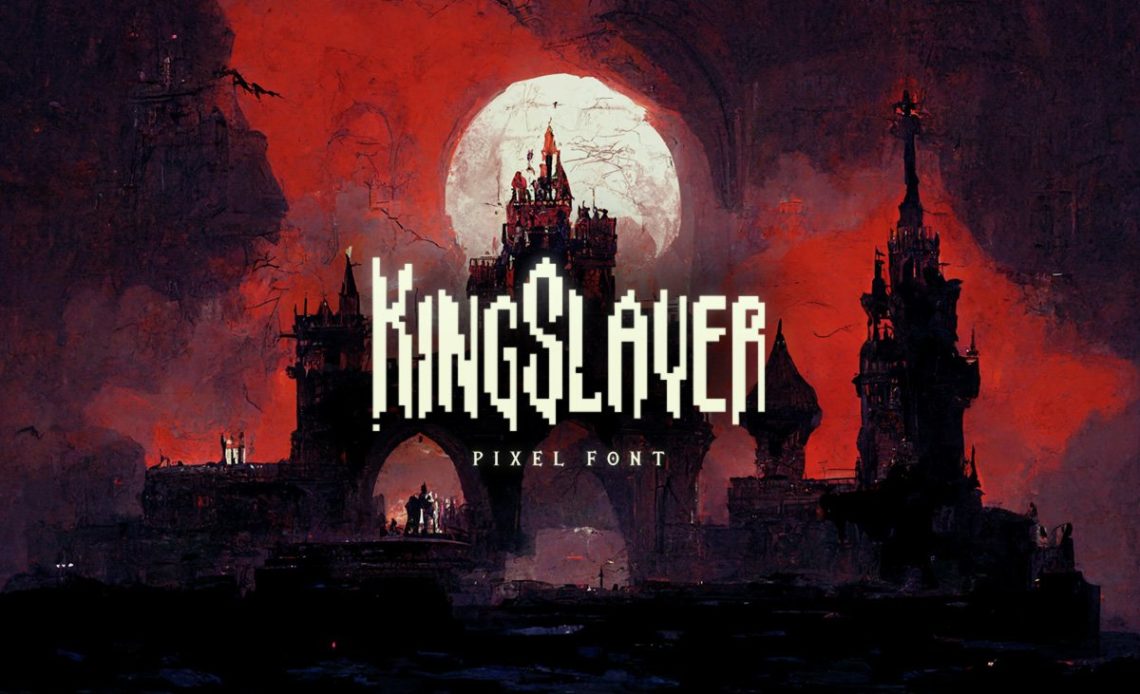
Are you ready to unleash the power of typography and bring a touch of dark fantasy to your designs? Look no further than Kingslayer Typeface, a mesmerizing creation by the talented UI and Type designer, Mehmet Reha Tugcu. This font is not just a collection of letters, it's a gateway to a world of enchantment and intrigue.
With its intricate pixel design, Kingslayer Typeface embodies the essence of a dark fantasy realm. Each letter is meticulously crafted to evoke emotions of mystery, power, and awe. Whether you're working on a book cover, game graphics, or any project that demands a touch of the extraordinary, this font will transport your audience into a captivating realm.
Imagine the impact of Kingslayer Typeface as your headline font. Each letter stands tall, adorned with unique details that will make your text leap off the page. The sharp edges and bold presence of this font demand attention, instantly captivating your audience and leaving a lasting impression. Whether you're designing a poster for a theatrical production or creating an eye-catching logo, Kingslayer Typeface will make your message impossible to ignore.
But this font is not just about appearances. It's also packed with functionality and versatility. Despite its dark fantasy theme, Kingslayer Typeface remains highly legible, ensuring that your message is always crystal clear. Its clean lines and carefully balanced proportions make it a joy to read, whether in small paragraphs or large chunks of text.
When you choose Kingslayer Typeface, you're not just investing in a font, you're investing in a unique storytelling tool. Let your creativity run wild as you explore the possibilities this font offers. Whether you're a designer, a writer, or a content creator, this font will become your ally in crafting captivating visuals that leave a lasting impact.